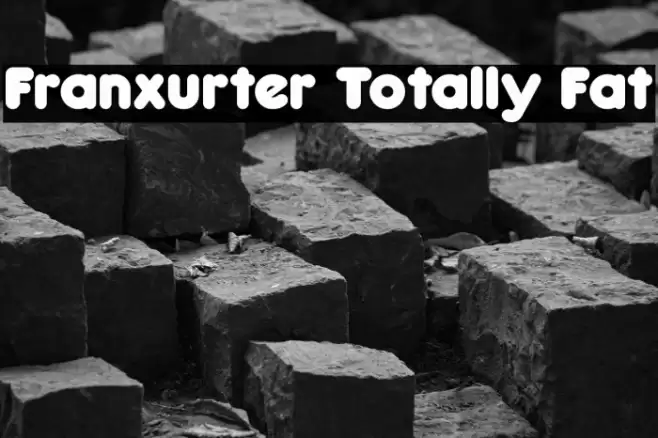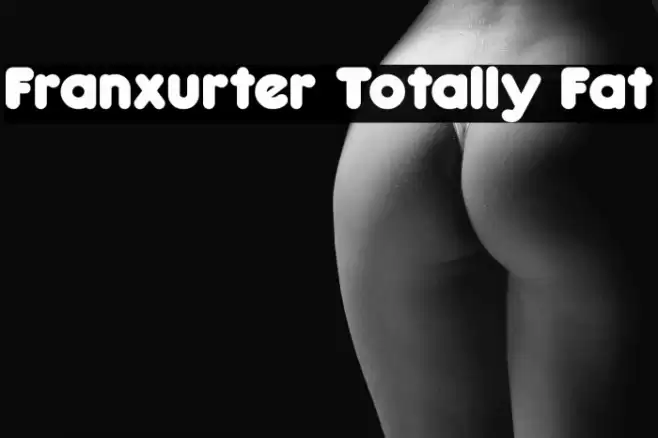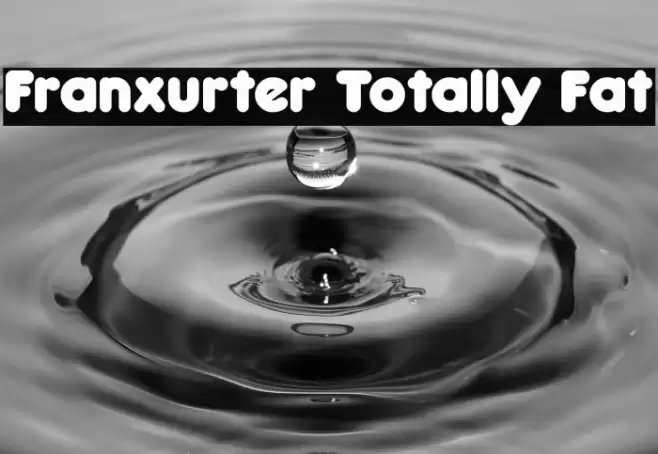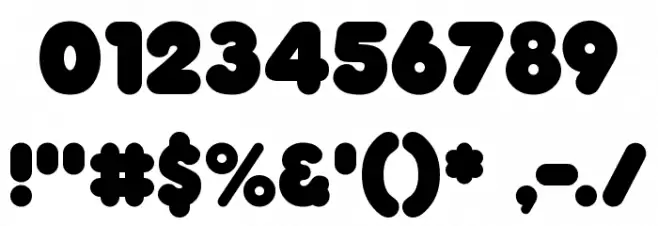
Franxurter Totally Fat Font
Franxurter Totally Fat Description
This font features a bold and playful design with rounded edges and a heavy weight, giving it a friendly and approachable appearance. The characters are uniformly thick, creating a cohesive look across both uppercase and lowercase letters. The numbers and special characters maintain the same playful style, making them easily recognizable and consistent with the overall design. The font's rounded and bubbly aesthetic makes it ideal for projects that require a fun and informal touch. Its boldness ensures high visibility, making it suitable for attention-grabbing headlines or logos.
A bold, playful font with rounded edges and a cohesive, friendly design from Uncategorized fonts.
- Proposed Projects: Ideal for children's books, playful branding, party invitations, and eye-catching headlines.
- Overall Style: Playful, Modern